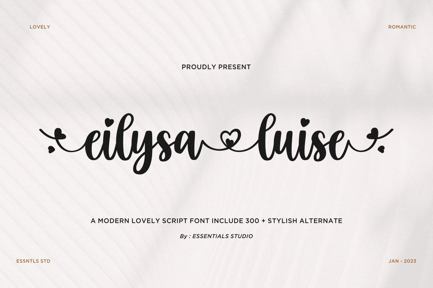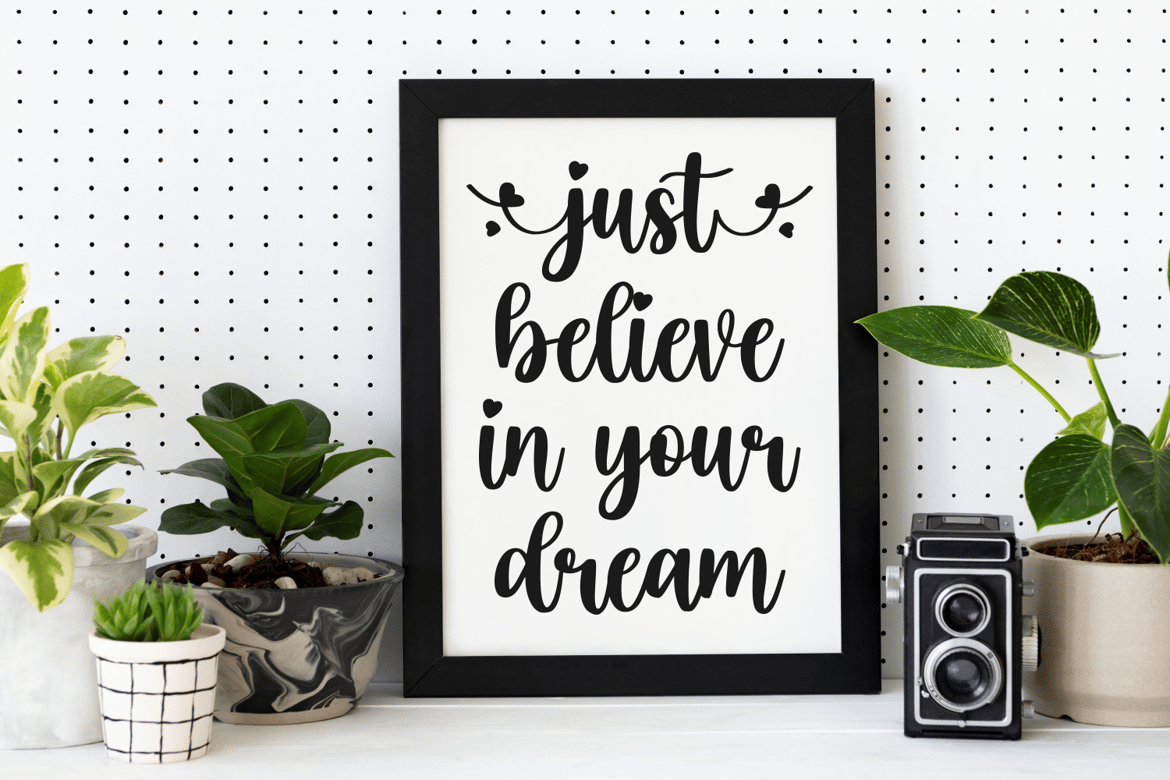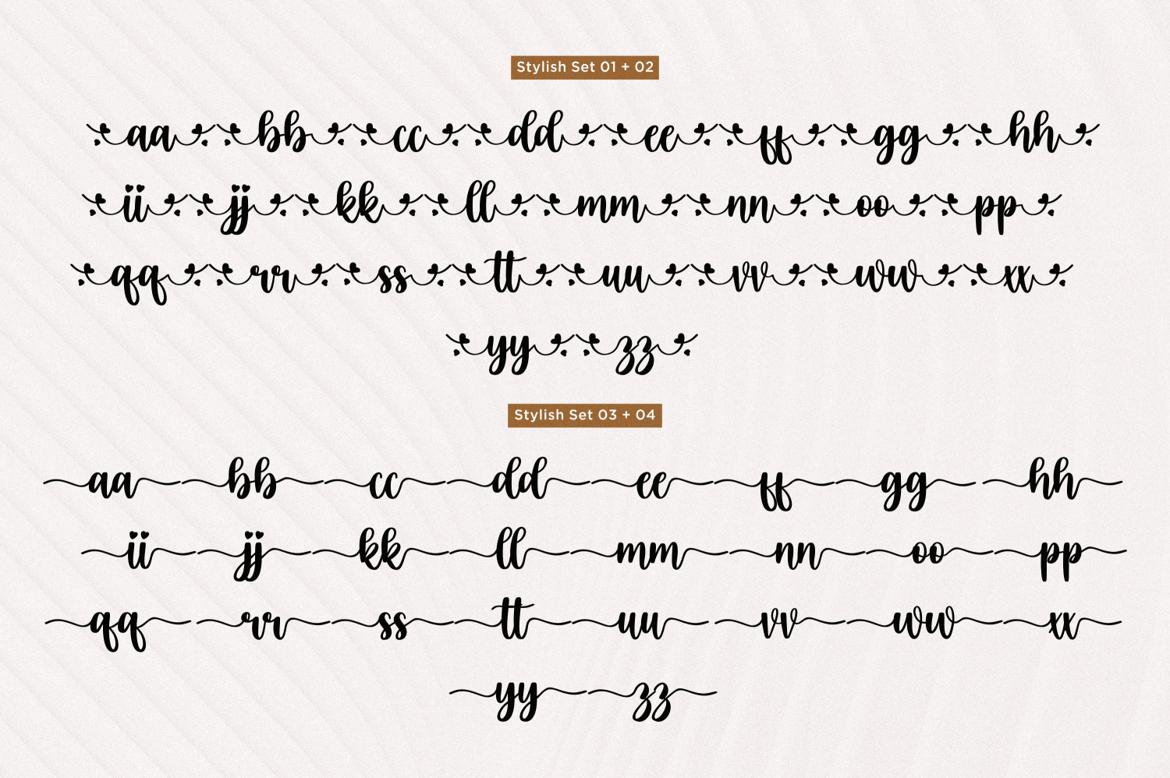
ES Eilysa Luise – Beautiful Hand Script Font
Proudly Present, Eilysa Luise Is a Modern Lovely Font Include 300+ stylish Alternate and Heart Connect
Eilysa Luise is perfect for product packaging, branding project, megazine, social media, wedding, or just used to express words above the background.
This Font Also Multilingual Support